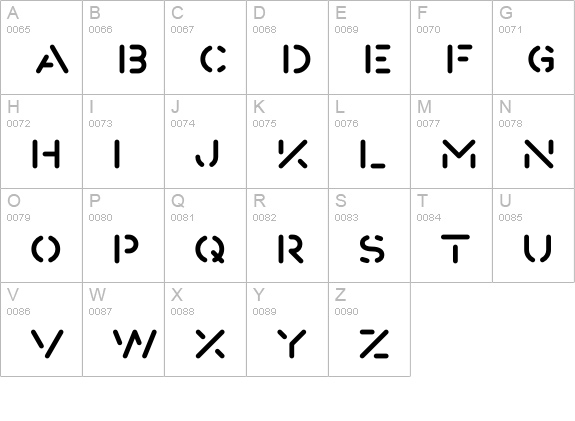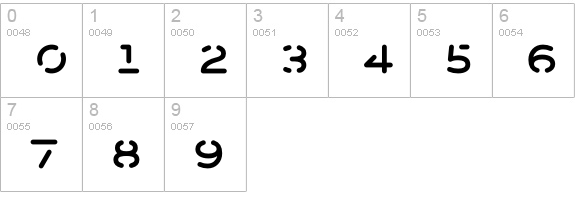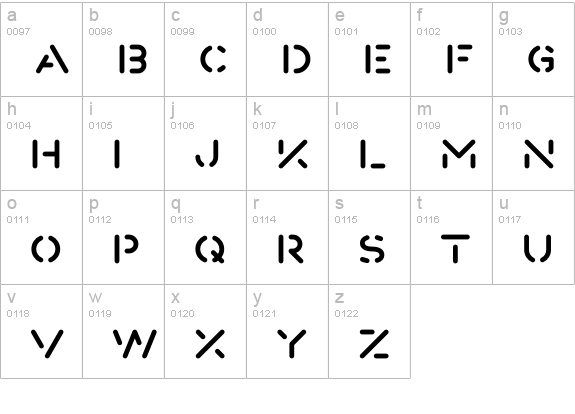
Introducing Fun City Level 2 Stencil font - a playful and eye-catching typeface that is sure to add a touch of fun to any project! This unique stencil font features bold lettering with a modern twist, making it perfect for a variety of design applications. Whether you're creating posters, banners, or invitations, Fun City Level 2 Stencil font will help your text stand out in style. And the best part? Fun City Level 2 Stencil font is completely free to download at FontsMarket.com! That's right, you can get your hands on this charming font without spending a dime. So why wait? Add a touch of whimsy to your designs with Fun City Level 2 Stencil font today!